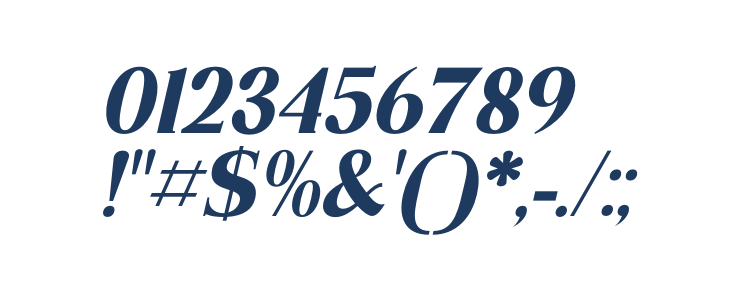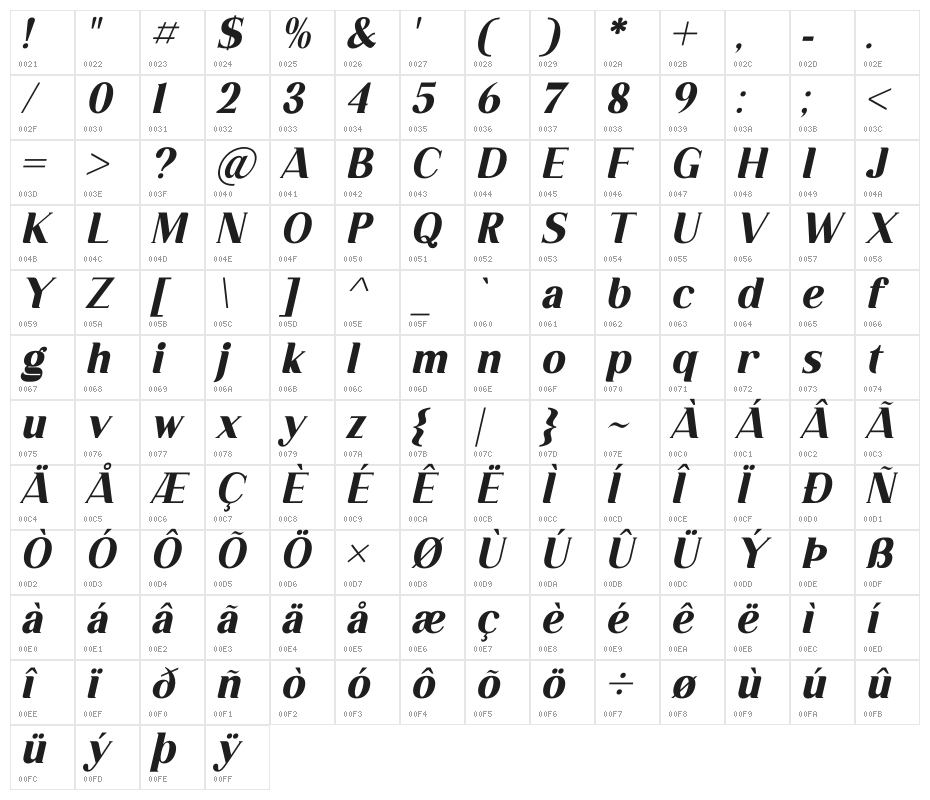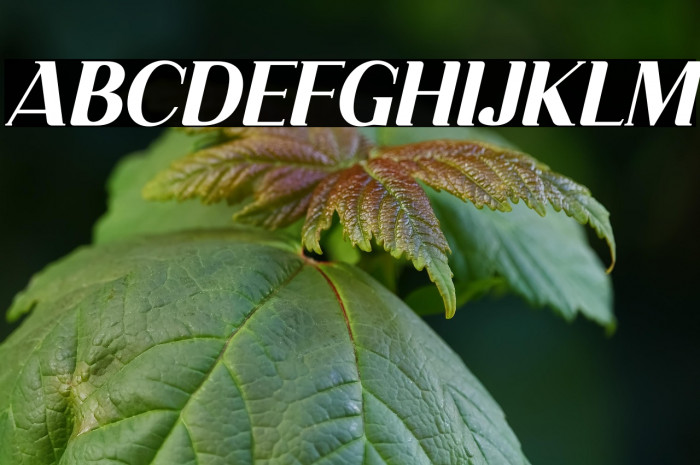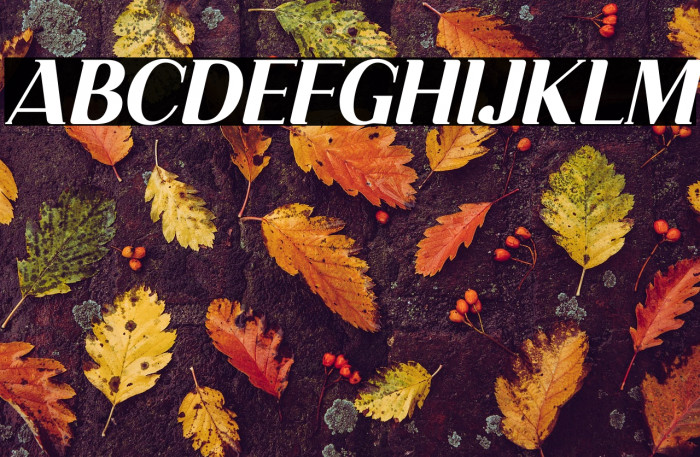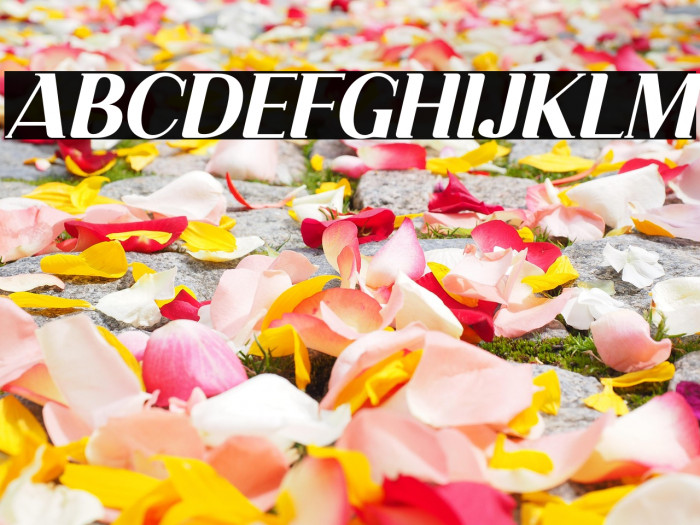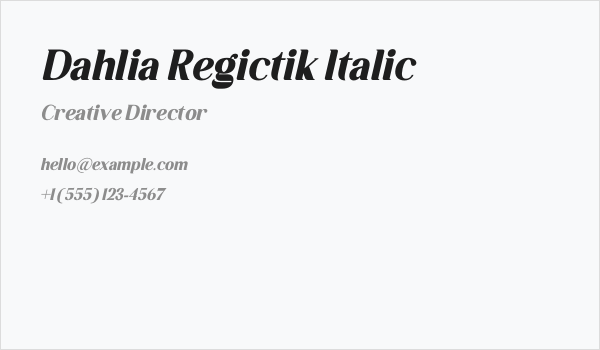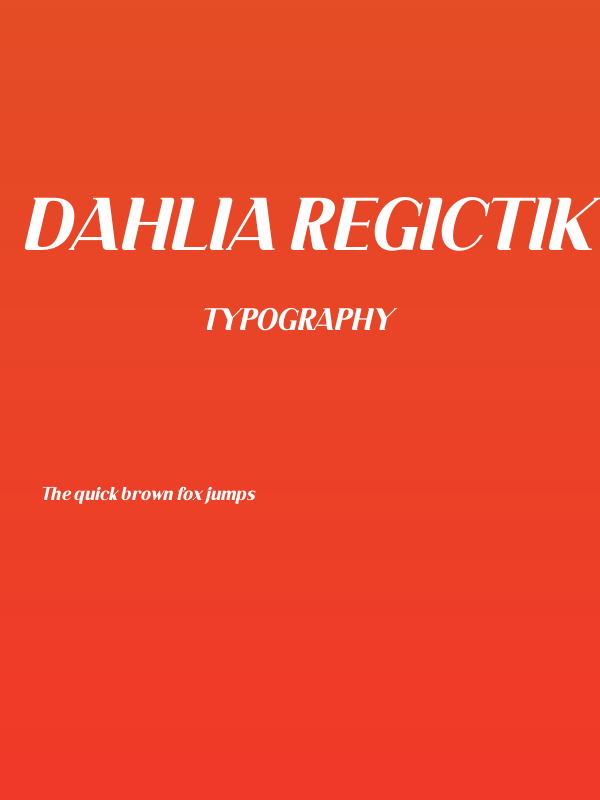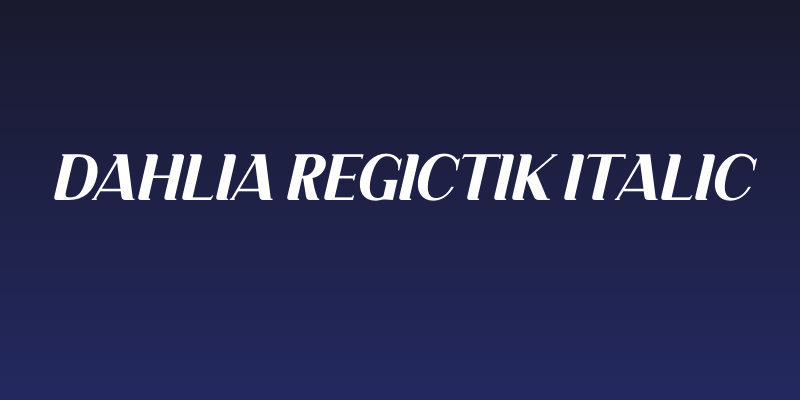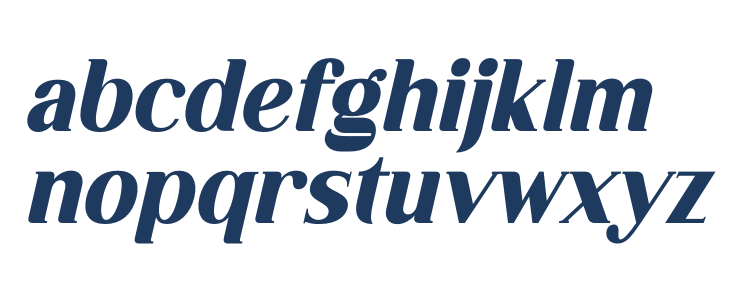
Dahlia Regictik Italic Font
Dahlia Regictik Italic Description
This font features a dynamic and elegant italic style, characterized by its smooth curves and sharp serifs. The uppercase letters exhibit a strong presence with a slight forward slant, giving a sense of motion and sophistication. The lowercase letters maintain a consistent flow, enhancing readability while retaining a stylish flair. Numbers are bold and clear, ensuring legibility in various contexts. Special characters are well-integrated, maintaining the overall aesthetic. The font's design is suitable for projects that require a touch of elegance and modernity.
| Use Case | Headlines, Logos, Editorial design |
| Proposed Projects | Ideal for luxury branding, editorial design, and elegant invitations. |